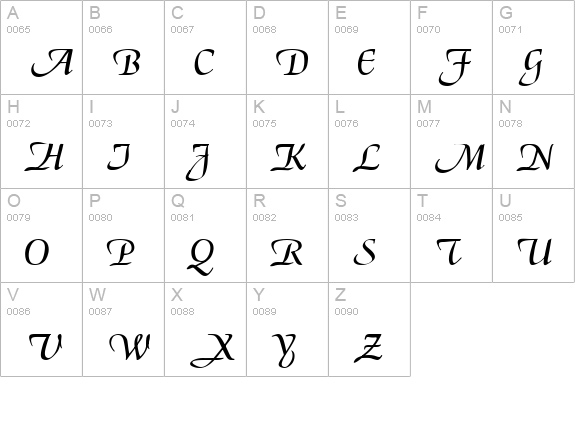
RSElGarrett Medium is a balanced, medium-weight variant in the RSElGarrett typeface family \xE2\x80\x94 well suited to sub-headlines, navigation, and balanced editorial work.
The RSElGarrett Medium font is a sleek and sophisticated typeface that exudes a sense of modern elegance. With its clean lines and balanced proportions, this font is perfect for adding a touch of sophistication to any design project. The RSElGarrett Medium font is versatile and easy to read, making it an excellent choice for both print and digital applications. Best of all, this exquisite font is available for free download at FontsMarket.com. Whether you're working on a website, branding materials, or any other design project, the RSElGarrett Medium font is sure to elevate your work with its timeless appeal and effortless charm. Download it today and see the difference it can make in your designs!